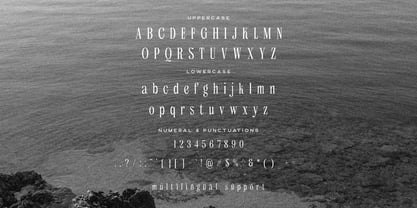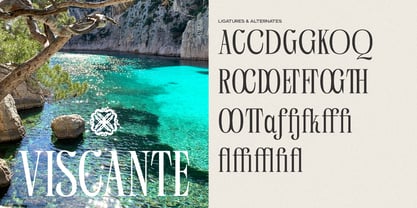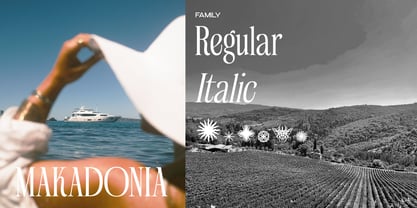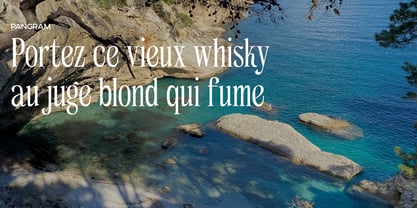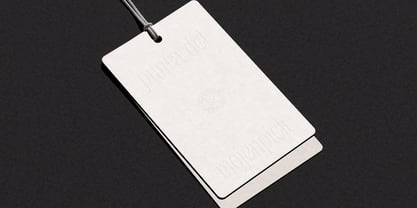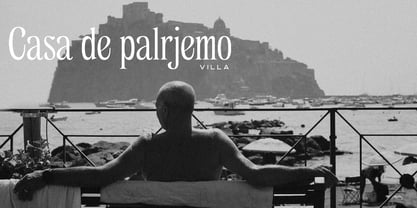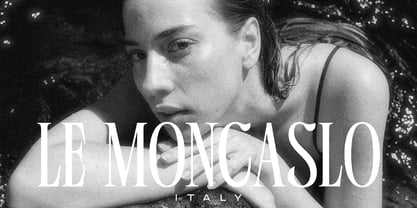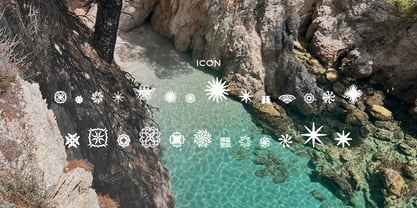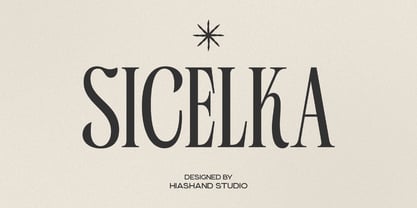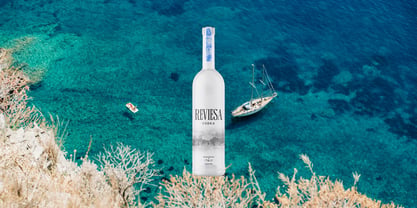
Sicelka
by Hishand Studio
The Sicelka Font Family was designed by Putu Dody Permana and published by Hishand Studio. Sicelka contains 3 styles and family package options. More about this family
Sicelka is a sophisticated display serif typeface that epitomizes the intersection of architectural grace and modern luxury. Designed with a deliberate emphasis on verticality, its elongated letterforms and slender structures create a striking silhouette that feels both contemporary and classic. This makes it an essential asset for designers seeking to elevate their visual storytelling with timeless prestige. The typeface is characterized by dramatic contrast between thick and thin strokes, a hallmark of premium typography that communicates exclusivity. Sharp, meticulously tapered serifs provide a crisp finish, ensuring the font remains legible while maintaining artistic flair. Because of its tall X-height and narrow stance, Sicelka commands attention in layouts without overwhelming other elements. It is perfectly suited for fashion branding, luxury editorials, and premium packaging. Beyond its physical attributes, Sicelka is crafted to deliver confidence and poise. Every curve is balanced to ensure a polished, professional result for high-end logotypes and headlines. Complete with - ligatures - alternates - regular - italic - icon - kerning - multilingual support
Designers: Putu Dody Permana
Foundry: Hishand Studio